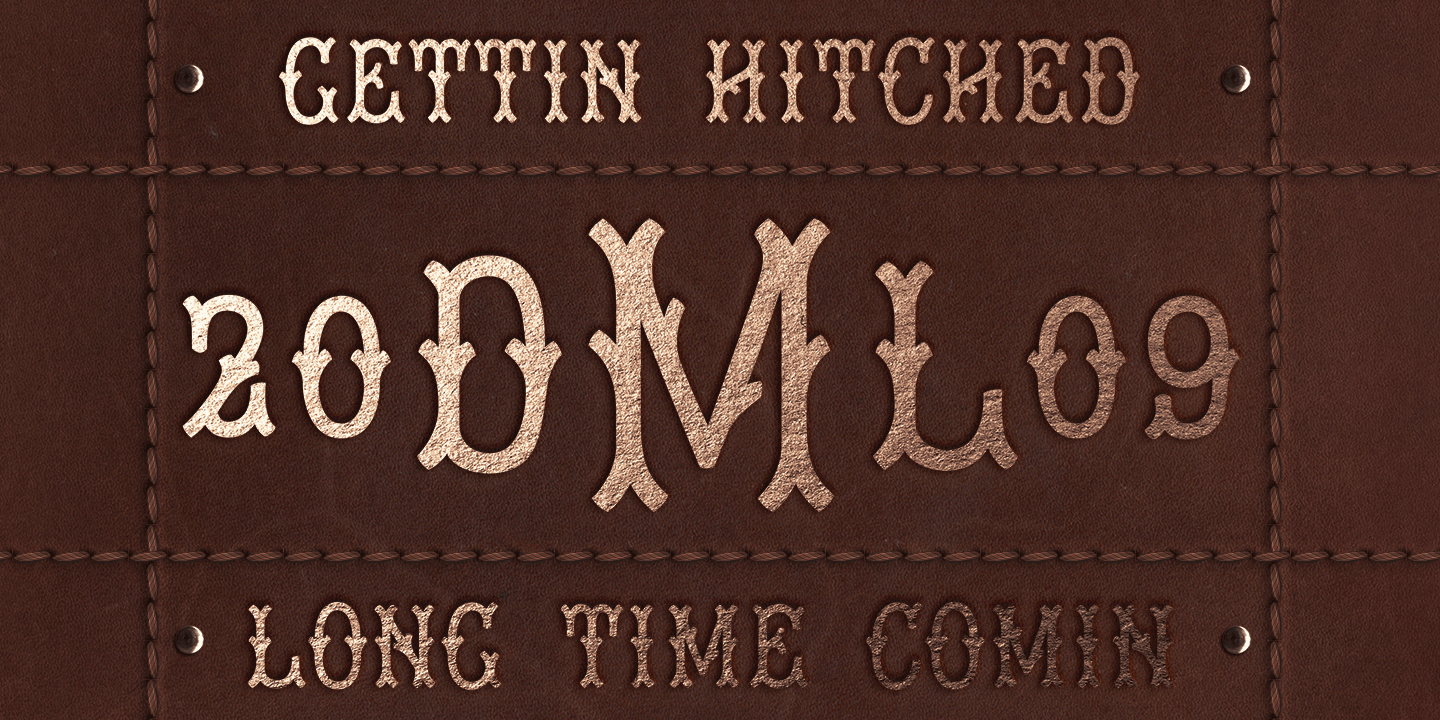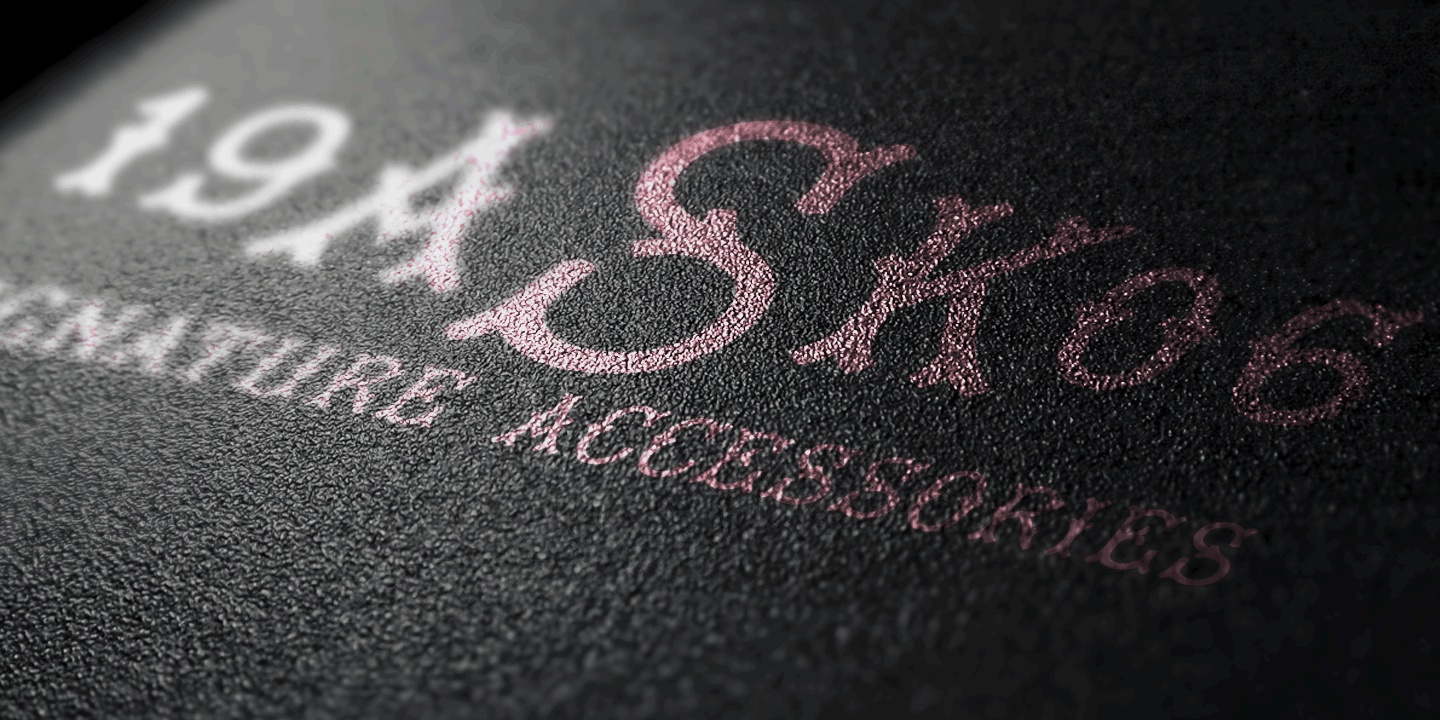
Tagliato Monogram
Font Family by Monogram Fonts Co
The inspiration source for Tagliato Monogram is a decorative letterset (capitals only) from the 1899-1900 "Treatise on Embroidery, Crochet and Knitting" booklet by M. Hemingway & Sons Silk Co. The letterforms mimic clipped branches, "Tagliato" meaning "Clipped" in Italian.
Tagliato Monogram can create one, two, or three letter monograms as well as basic headline and titling settings. It was originally designed to have outlined initials, but solid and outline versions have been created for more versatility and appeal.